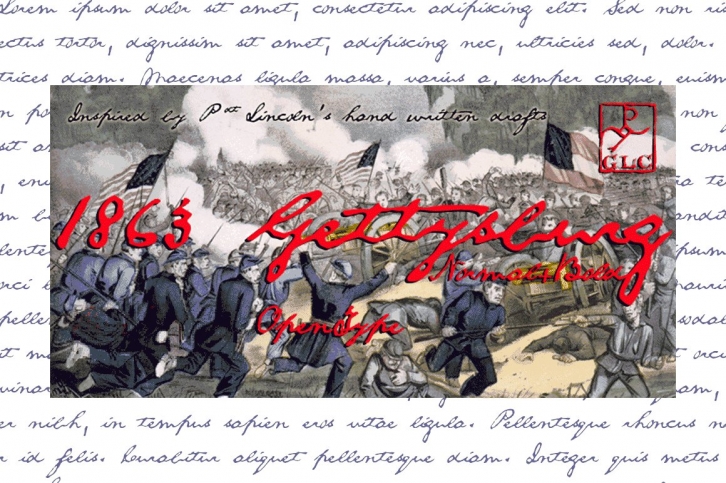
This script font was created inspired from a lot of autographs, notes and drafts, written by President Abraham Lincoln, mainly the "Gettysburg address", first draft and copies, but also the emancipation proclamation. It is an attempt to offer a typical manual script from this american period, not to propose the exact writing from A.Lincoln himself.